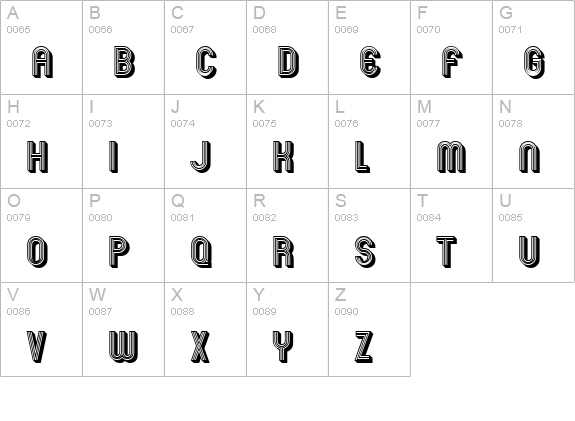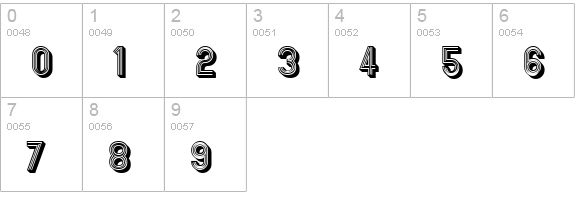
Mexcellent 3D Font Details
Introducing Mexcellent 3D font, a stunning and eye-catching typeface that will add a touch of vibrancy and modernity to your designs. This unique font features intricate 3D elements that give it a dynamic and contemporary look. With its bold and stylish appearance, Mexcellent 3D font is perfect for creating impactful headlines, logos, posters, and more. The best part? Mexcellent 3D font is completely free to download at FontsMarket.com! That's right, you can easily access this amazing font and use it in your projects without any cost. Whether you're a designer looking to spice up your creations or a business owner in need of a fresh new branding tool, Mexcellent 3D font is the perfect choice. Don't miss out on the opportunity to elevate your designs with this Mexcellent 3D font. Download it now for free and let your creativity shine!